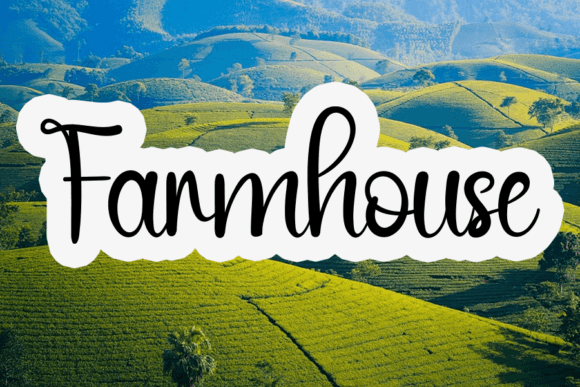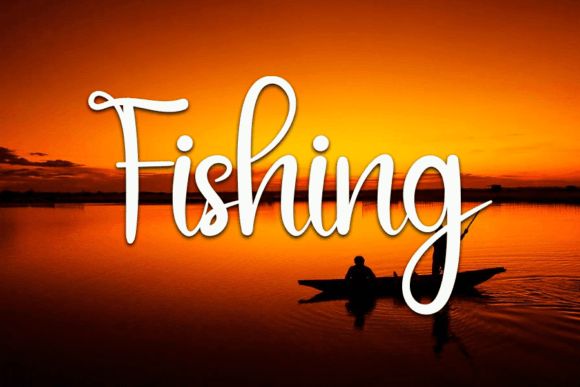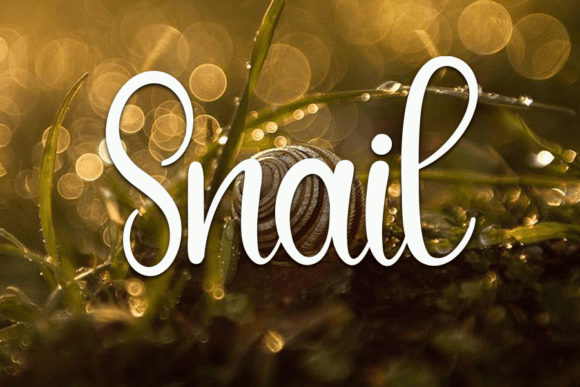
About Underline Font
“Underline” is a font that embodies simplicity and adaptability, making it a versatile choice for various design projects. Its unassuming charm adds a touch of elegance and sweetness, making it an excellent option for love letters, wedding invitations, and a wide range of creative endeavors. When incorporated into your favorite design ideas, “Underline” promises to astonish you with the delightful outcome it brings.
**Simple and Elegant**: “Underline” stands out with its simplicity and elegance. Its clean lines and clear letterforms create a sense of sophistication, making it a suitable choice for projects that require a refined touch. The font’s simplicity ensures that your message is communicated clearly, enhancing the overall readability of your designs.
**Adaptable Beauty**: One of the remarkable qualities of “Underline” is its adaptability. Whether you’re expressing your deepest emotions in a love letter, setting the tone for a romantic wedding invitation, or infusing a touch of sweetness into your creative designs, this font seamlessly adapts to various contexts. Its versatility allows it to enhance the visual appeal of a wide array of projects.
**Cute and Sweet Vibes**: The cute-looking demeanor of “Underline” adds a delightful charm to your designs. It exudes a sweet and endearing vibe, making it particularly suitable for projects that aim to evoke warm emotions and heartfelt sentiments. Incorporating this font into your love letters or wedding invitations infuses your words with a touch of romance and tenderness.
**Astonishing Outcomes**: When you add “Underline” to your creative repertoire, you can expect astonishing outcomes. The font’s ability to transform ordinary text into visually appealing and charming content is truly remarkable. It has the power to elevate your love letters, invitations, and other design ideas, leaving a lasting impression on the recipients and viewers.
In summary, “Underline” is more than just a font; it’s a tool that adds a touch of sweetness and elegance to your creative expressions. Its simplicity, adaptability, and cute charm make it a valuable asset for designers, writers, and anyone seeking to infuse their projects with warmth and sophistication. So, go ahead and incorporate “Underline” into your love letters, wedding invitations, or any other favorite design ideas, and be prepared to be astounded by the enchanting and delightful outcome it brings to your creations.